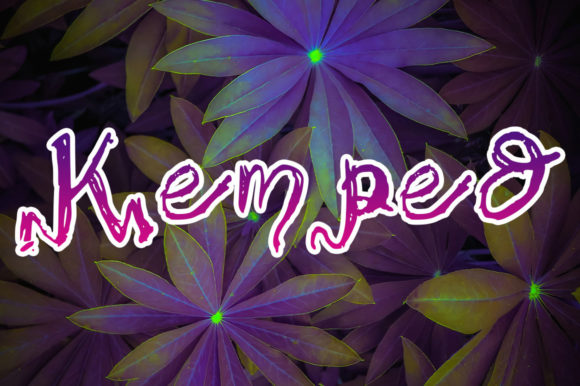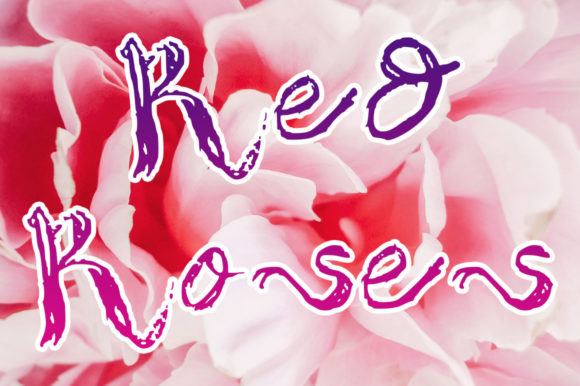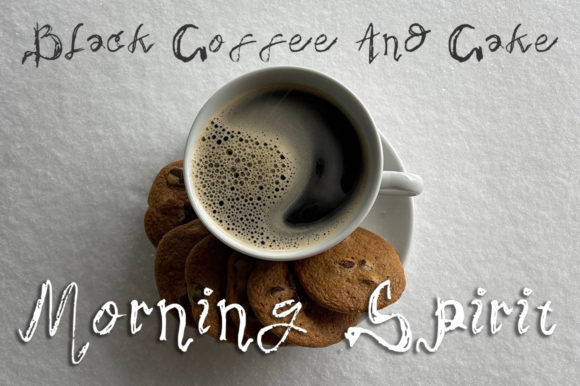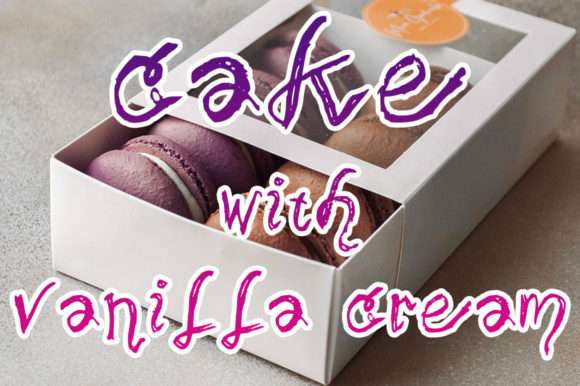
Kemped Font
About Kemped Font
Kemped is a beautiful and quirky handwritten font, perfect for making your designs stand out from the crowd. Its characters are perfect for wall displays, wedding invitations, social media post logos, advertisements, product packaging, product designs, labels, photography, watermarks, invitations, stationery, and any project that requires modern typography.